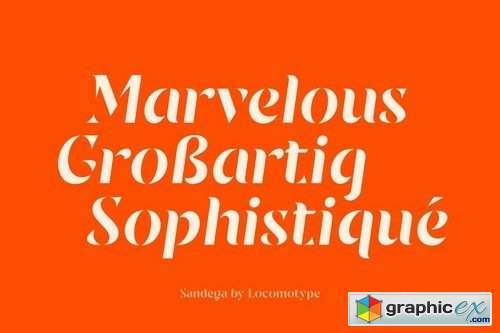
Sandega
Like mixing spices, Sandega font is an experiment that blends serif, sans-serif and stencil style into one flavor. The goal is to make a font that is unique and distinct but still legible.